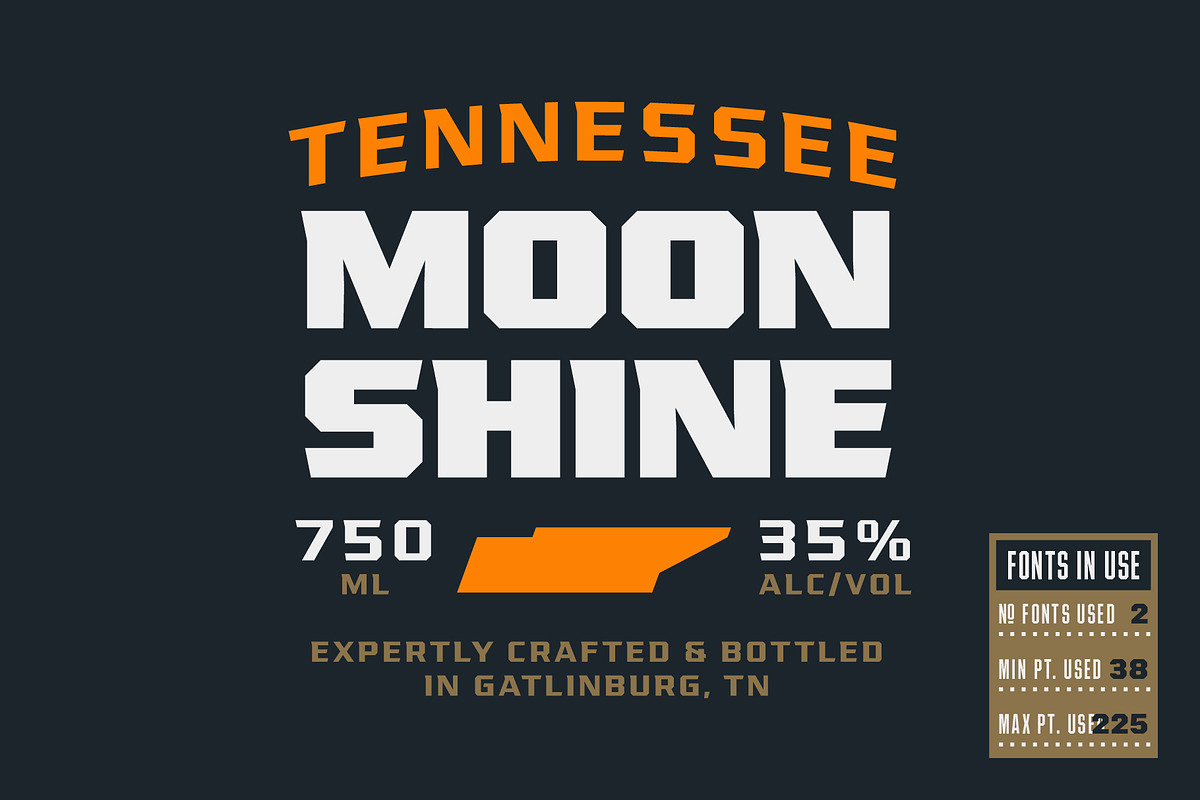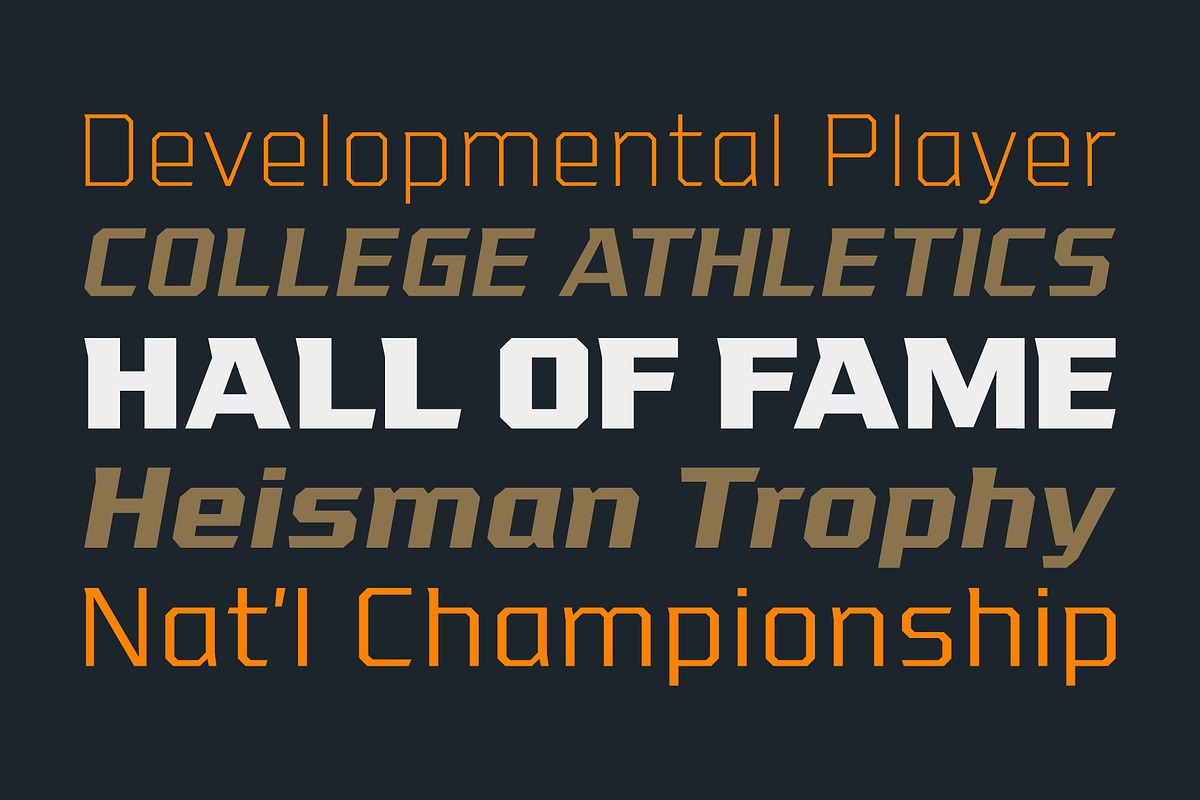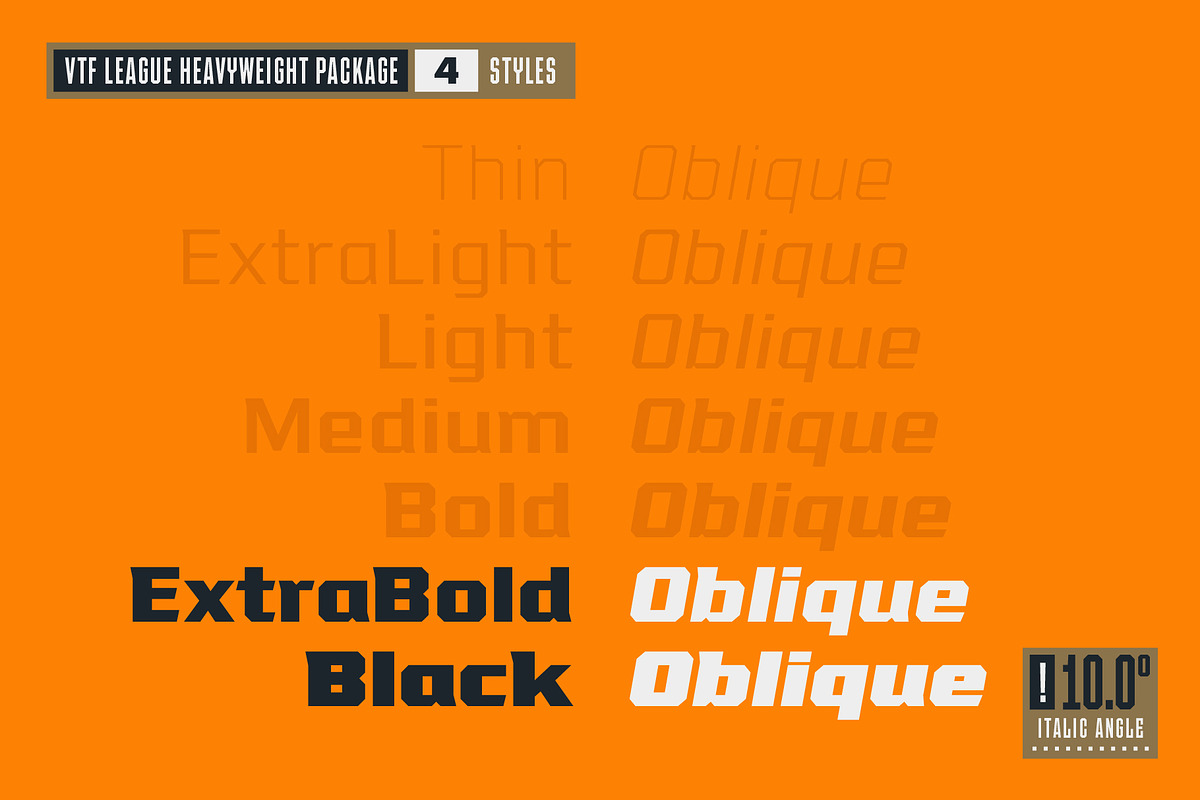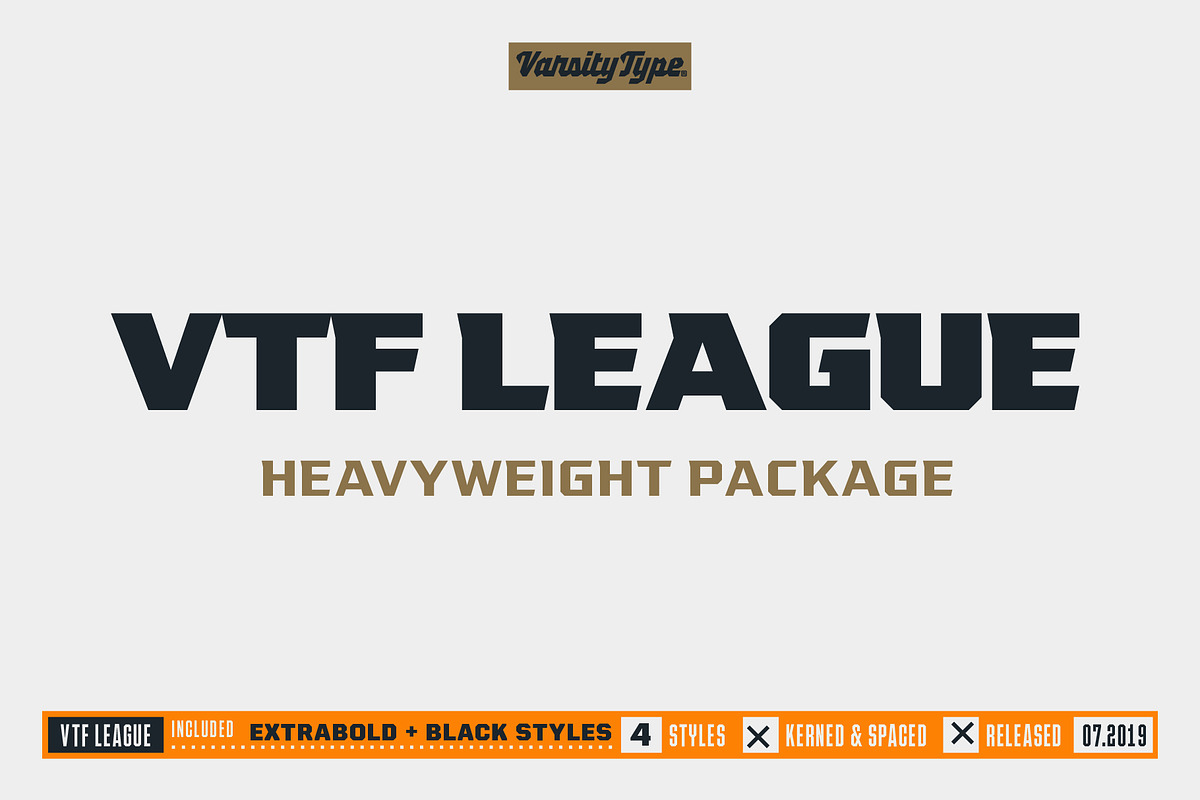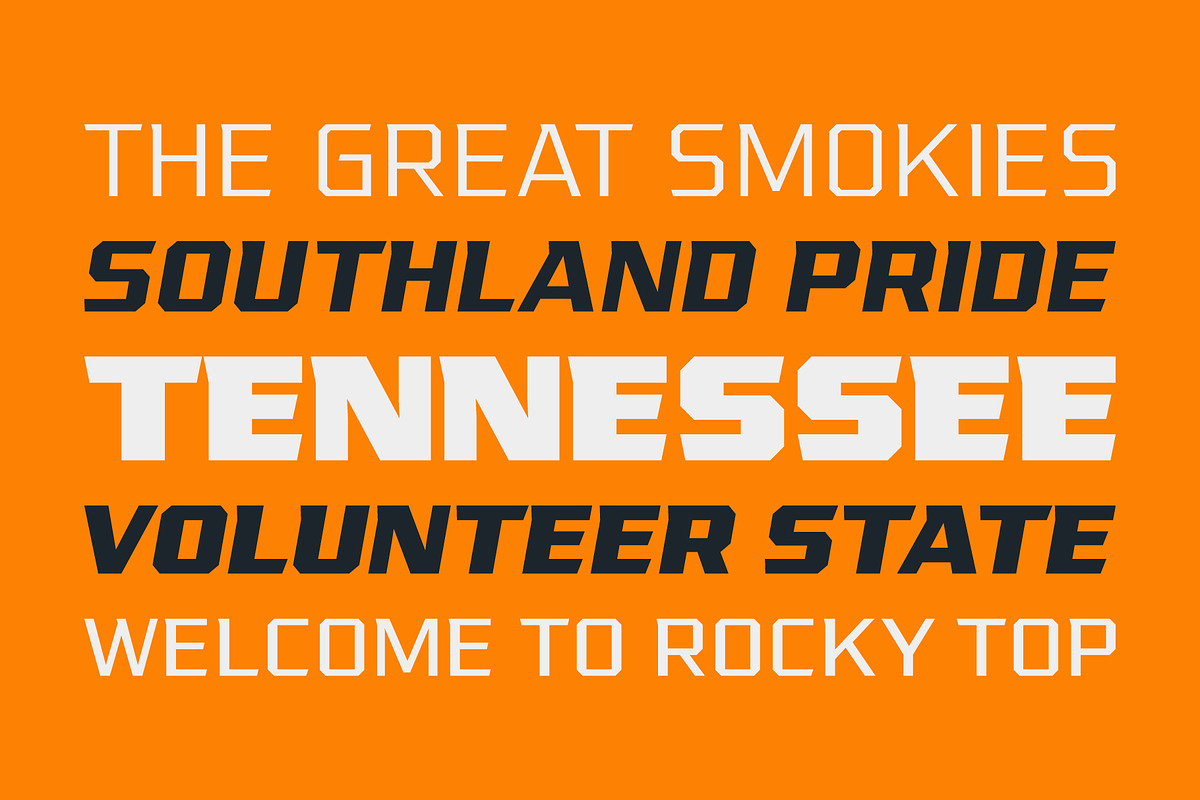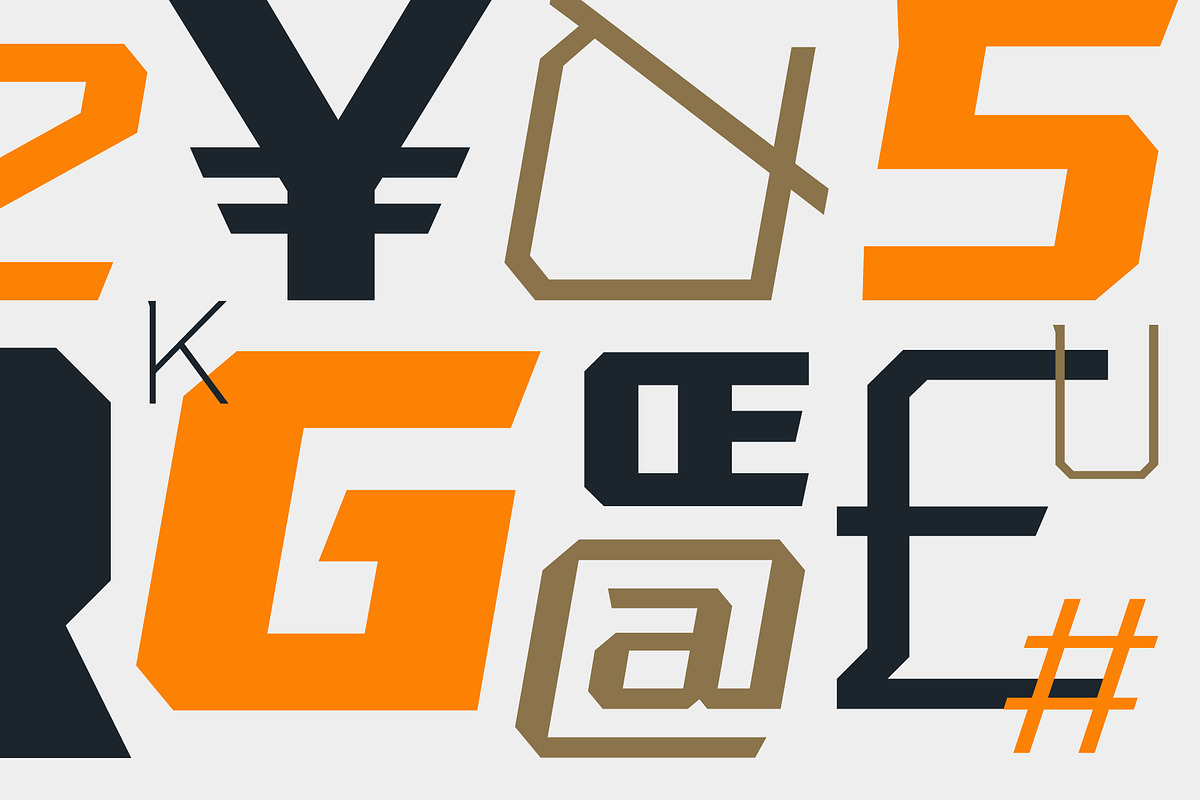
VTF League – Heavyweight Package
This displace typeface is fueled by moonshine and built for competition.
VT League is a hard working, 14-font athletic block display family. Its letterforms feature a synthesis of heavy verticals and lighter horizontals that create a steady visual rhythm, and chiseled terminals to help establish a competitive personality. Although developed for sports branding and similar projects, VTF League was inspired by the harmonized mix of sturdy, industrialized, no-nonsense typefaces and the brand uniqueness of local distilleries around Eastern Tennessee during a week-long moonshine tour in February 2018. As of July 2019, VT League has been redeveloped to include a complete alphabet of uppercase, lowercase, and small cap alternates with 7 weights and oblique style variants for each.